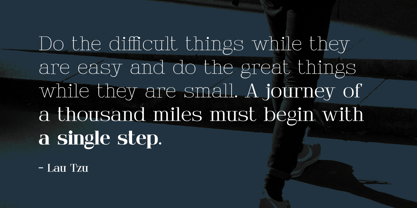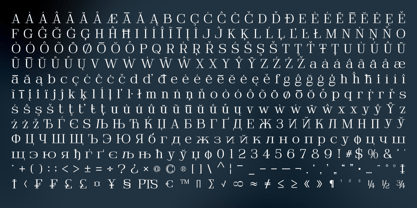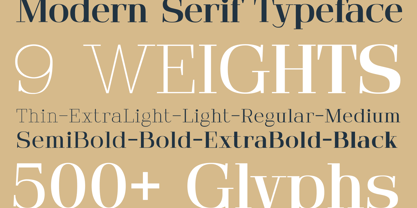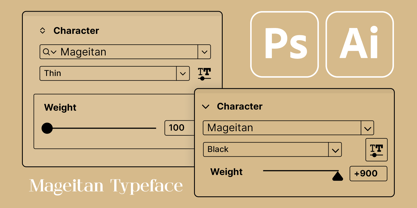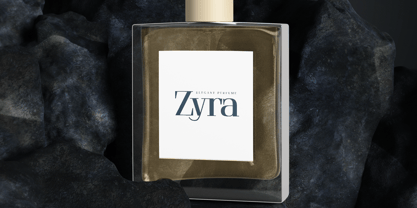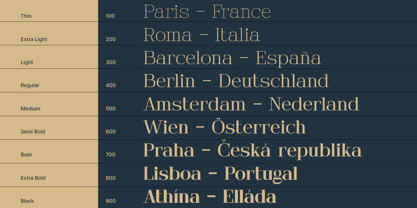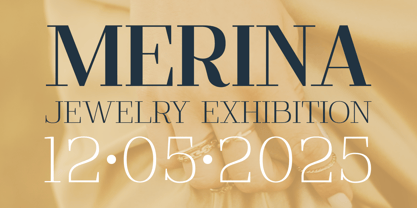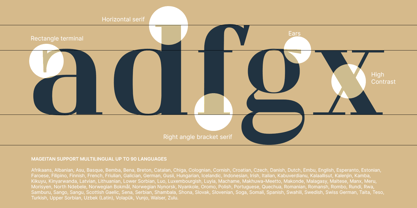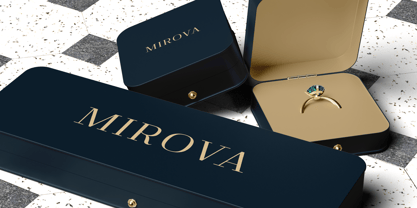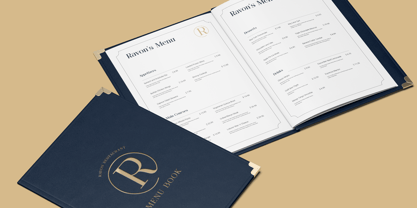
Mageitan
by Din Studio
The Mageitan Font Family was designed by Donis Miftahudin and published by Din Studio. Mageitan contains 9 styles and family package options. More about this family
Mageitan is a refined serif font family that artfully balances simplicity, modernity, and elegance. Featuring nine meticulously crafted weights, from delicate Thin to commanding Black, Mageitan offers remarkable versatility for a wide range of design applications. Its carefully considered letterforms blend crisp, clean lines with subtle, graceful details, creating a contemporary aesthetic while honoring timeless typographic tradition. Mageitan delivers a confident, understated charm that adapts seamlessly to your creative vision. In addition, enjoy the features here.
Features:
• Multilingual Supports
• Numerals and Punctuations
Mageitan fits in bold branding, packaging, posters, headlines, editorial designs, and many more designs. Find out more ways to use this font by taking a look at the font preview.
Designers: Donis Miftahudin
Current Foundry: Din Studio
Mageitan